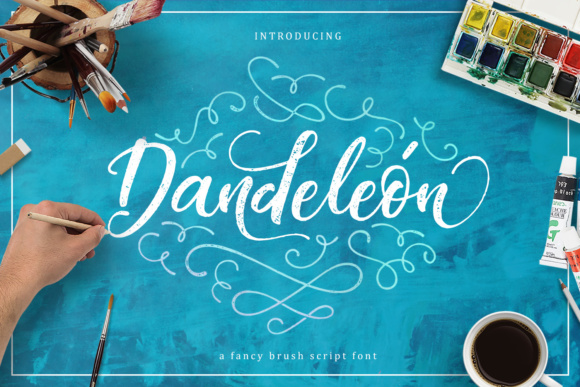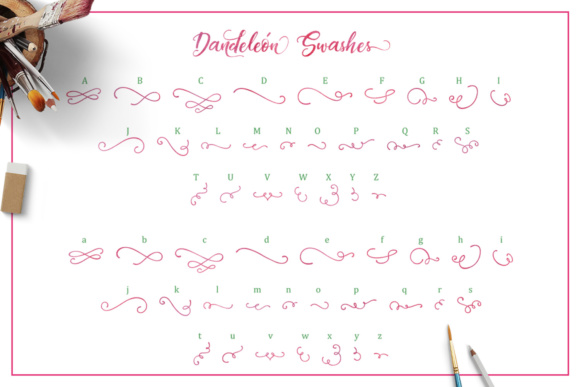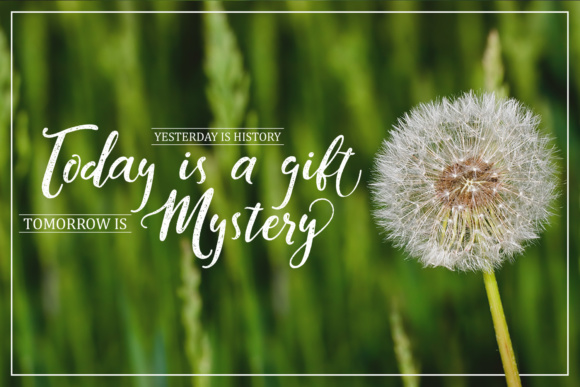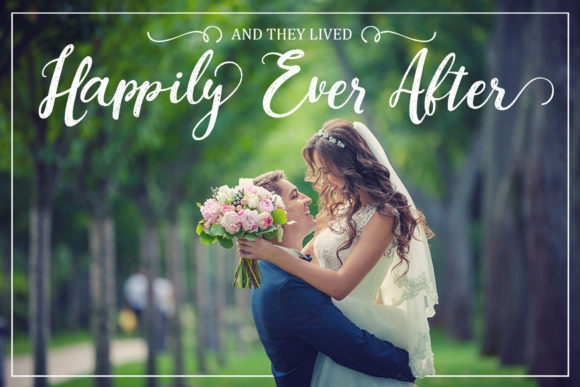
Dandeleón Font
About Dandeleón Font
Dandeleón is a gorgeous script font, perfect for use in a wide range of designs! This calligraphy, inky looking font is a great way to give your designs a handmade appeal and is easy to use in projects that necessitate a hand-lettered vibe.